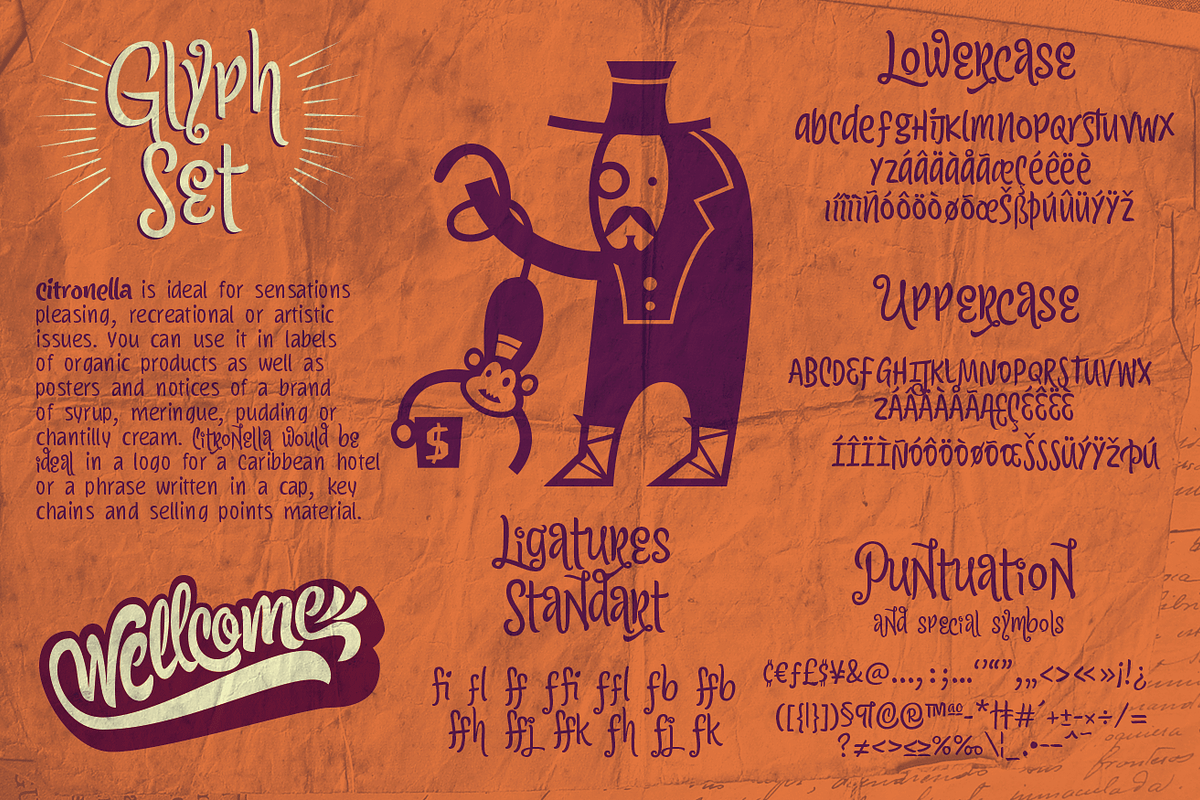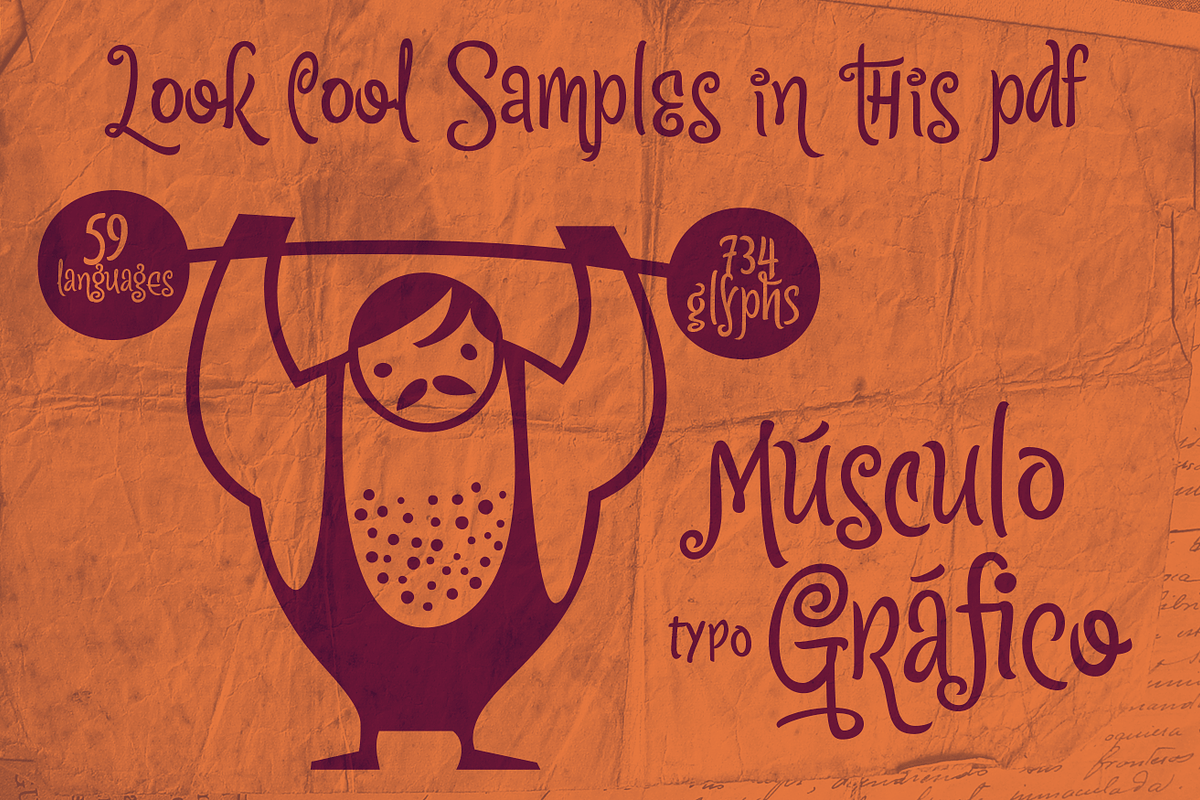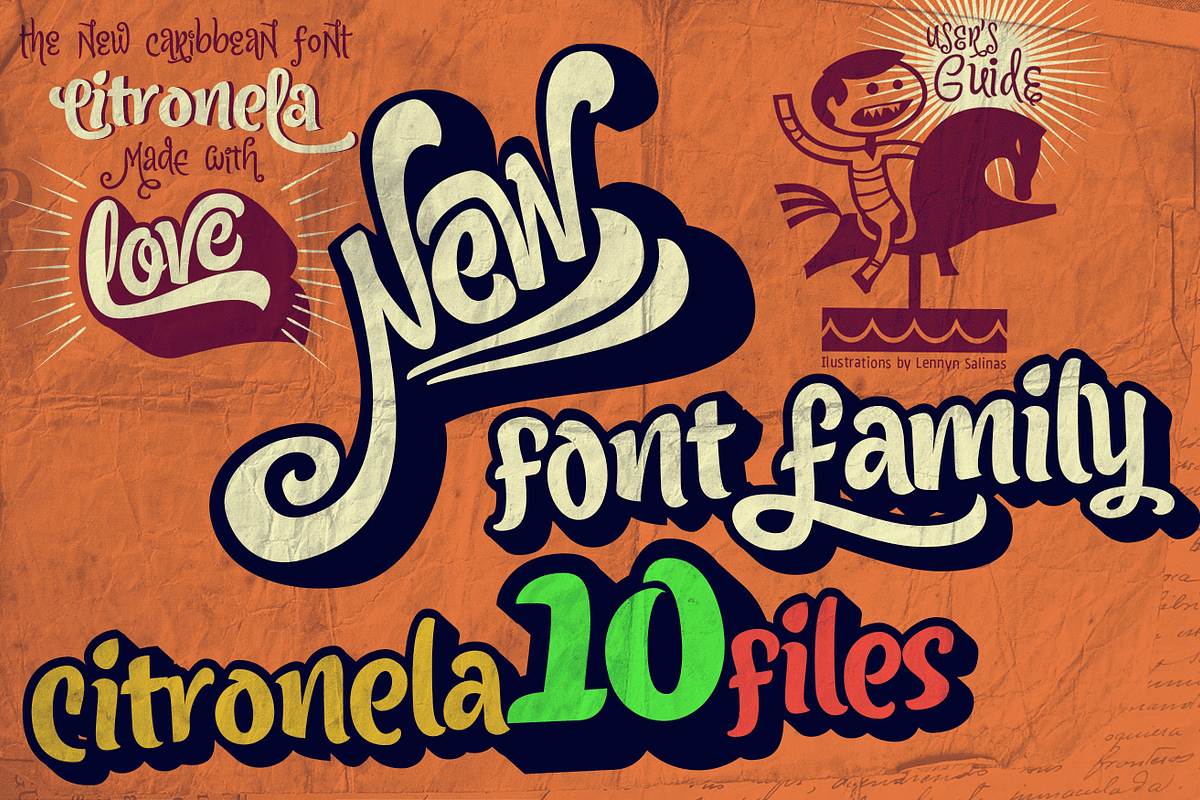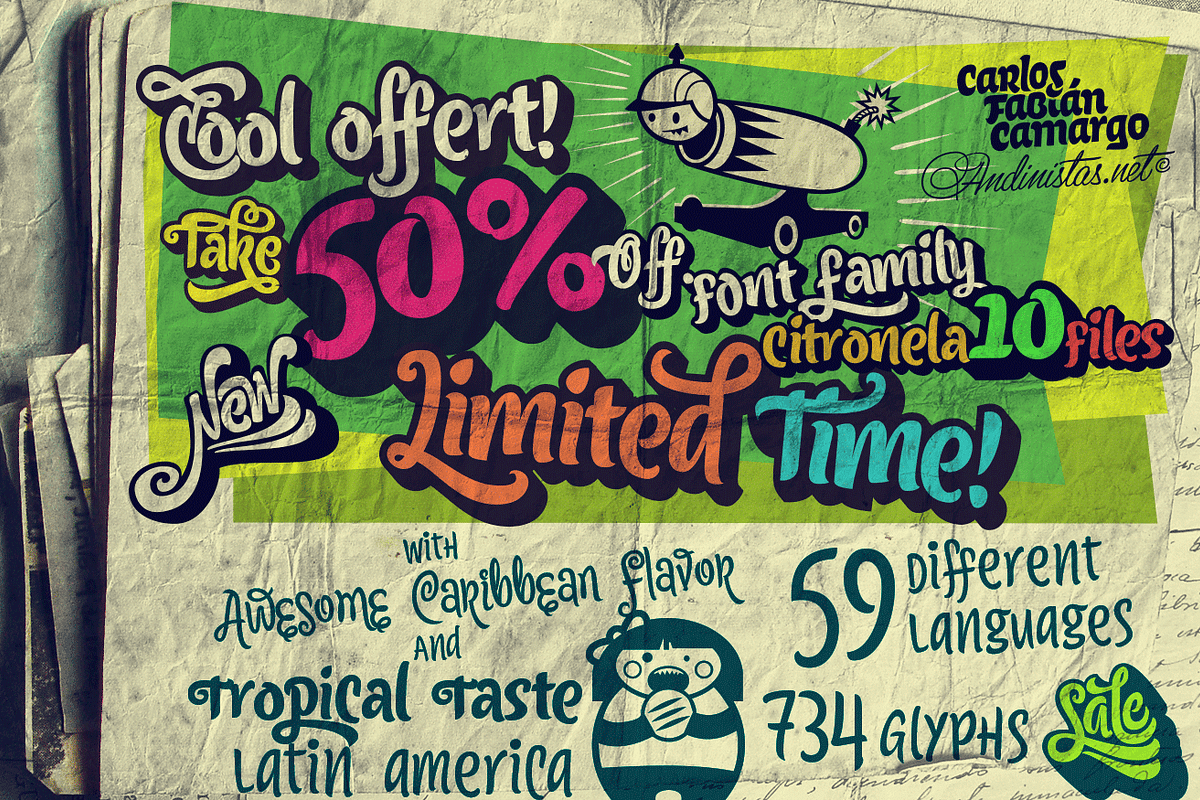
Citronela Type Family / 10 fonts
Citronela Type Family / 10 fonts by Andinistas Fonts is a font selected for branding, posters, packaging, typography.
Why Citronela Type Family / 10 fonts is worth a look
Citronela Type Family / 10 fonts by Andinistas Fonts fits naturally into Branding, posters, packaging, typography.